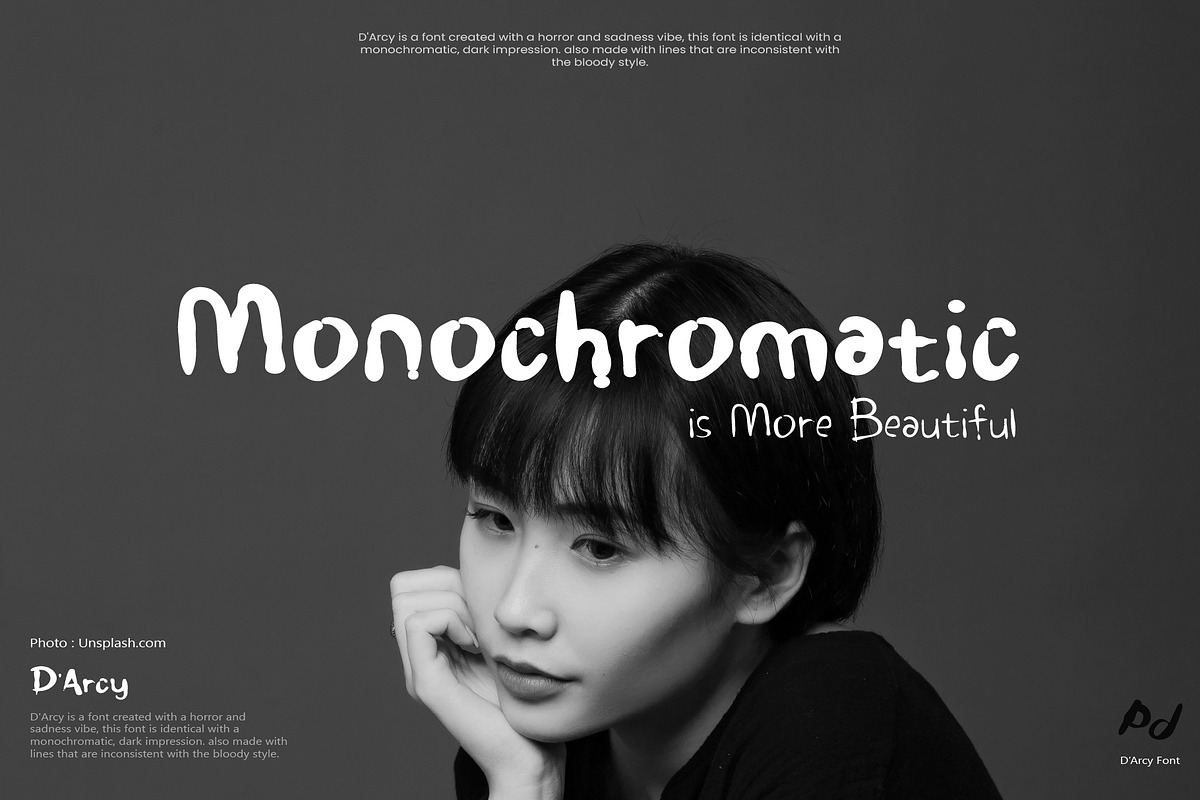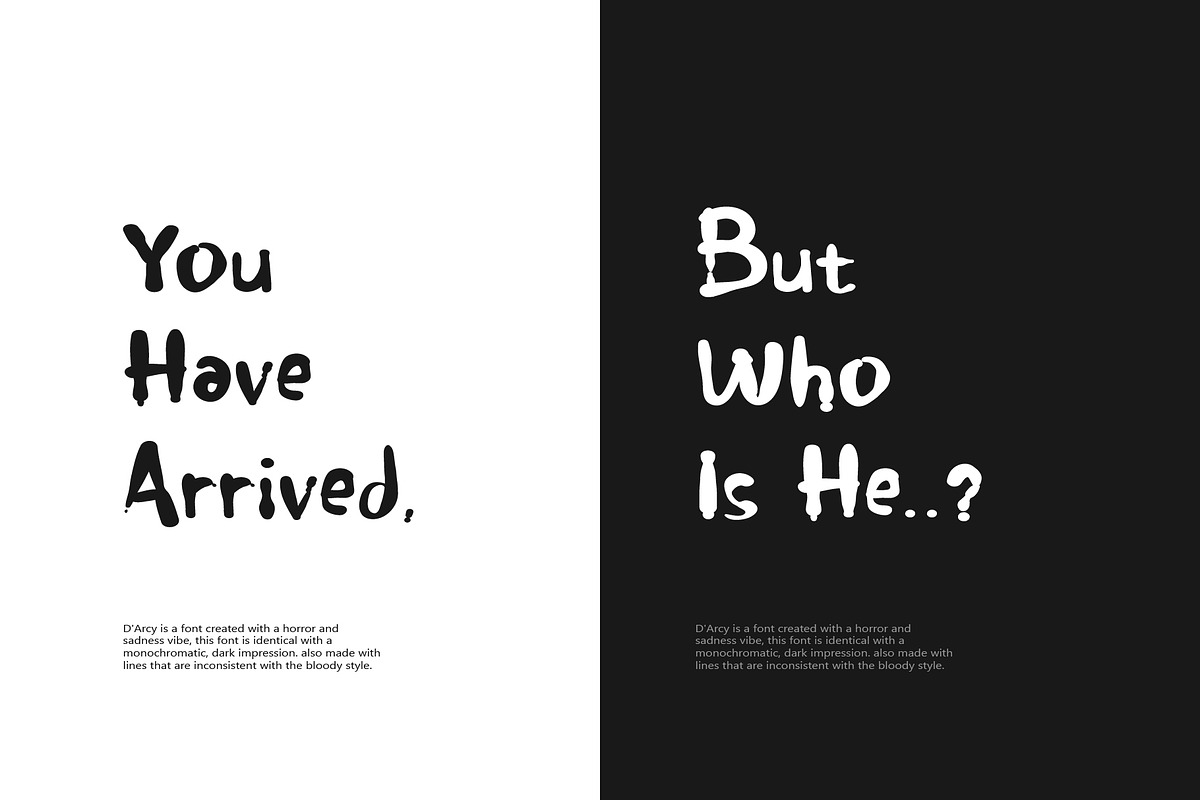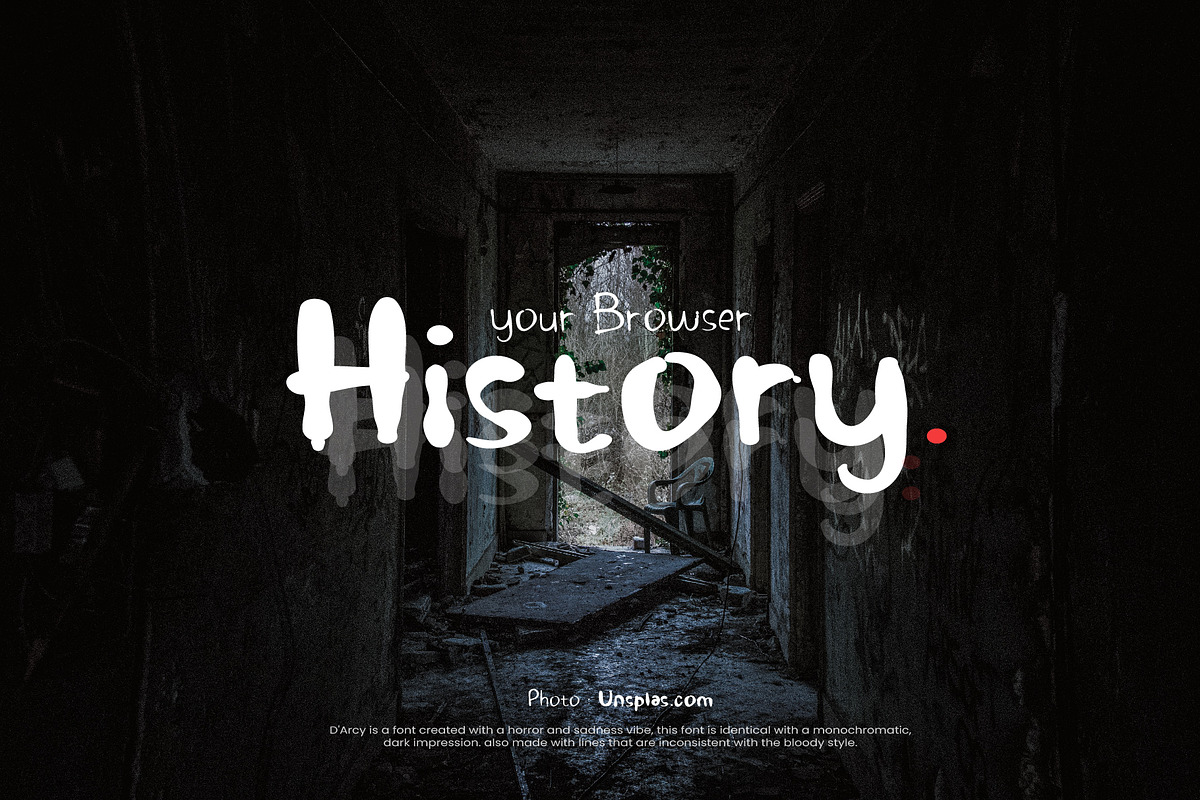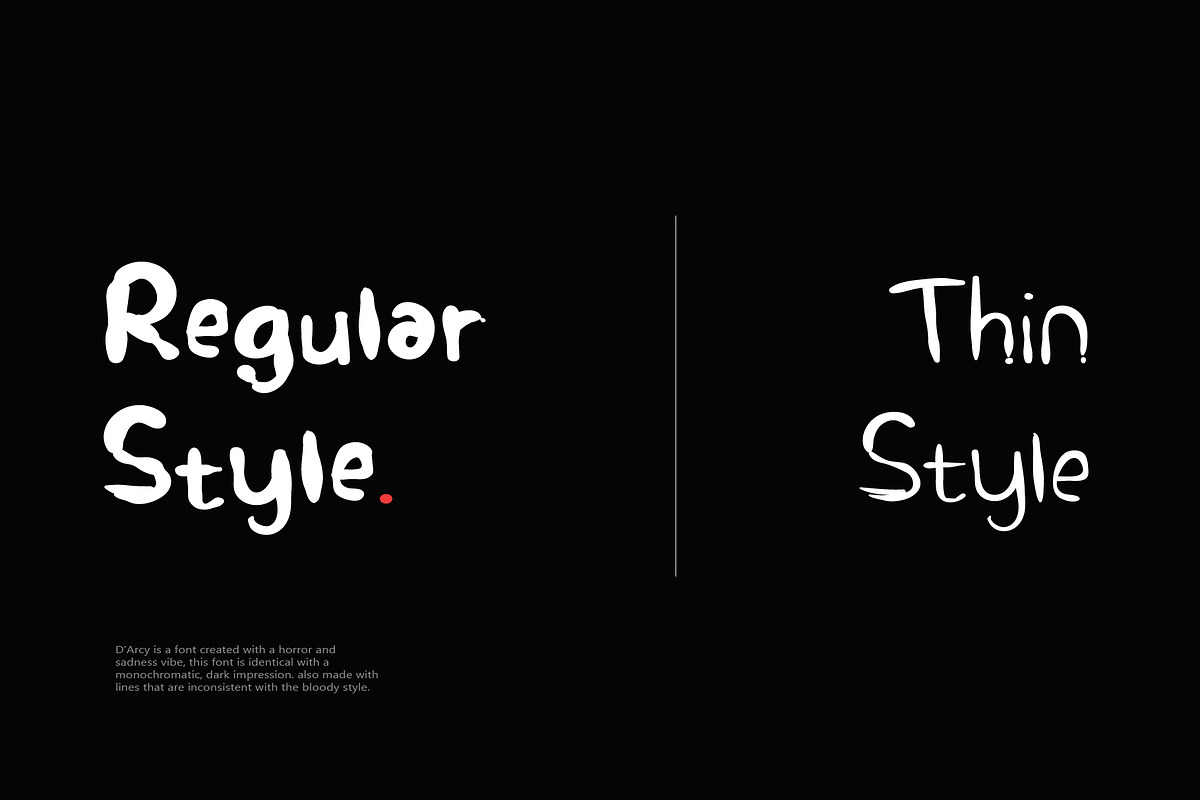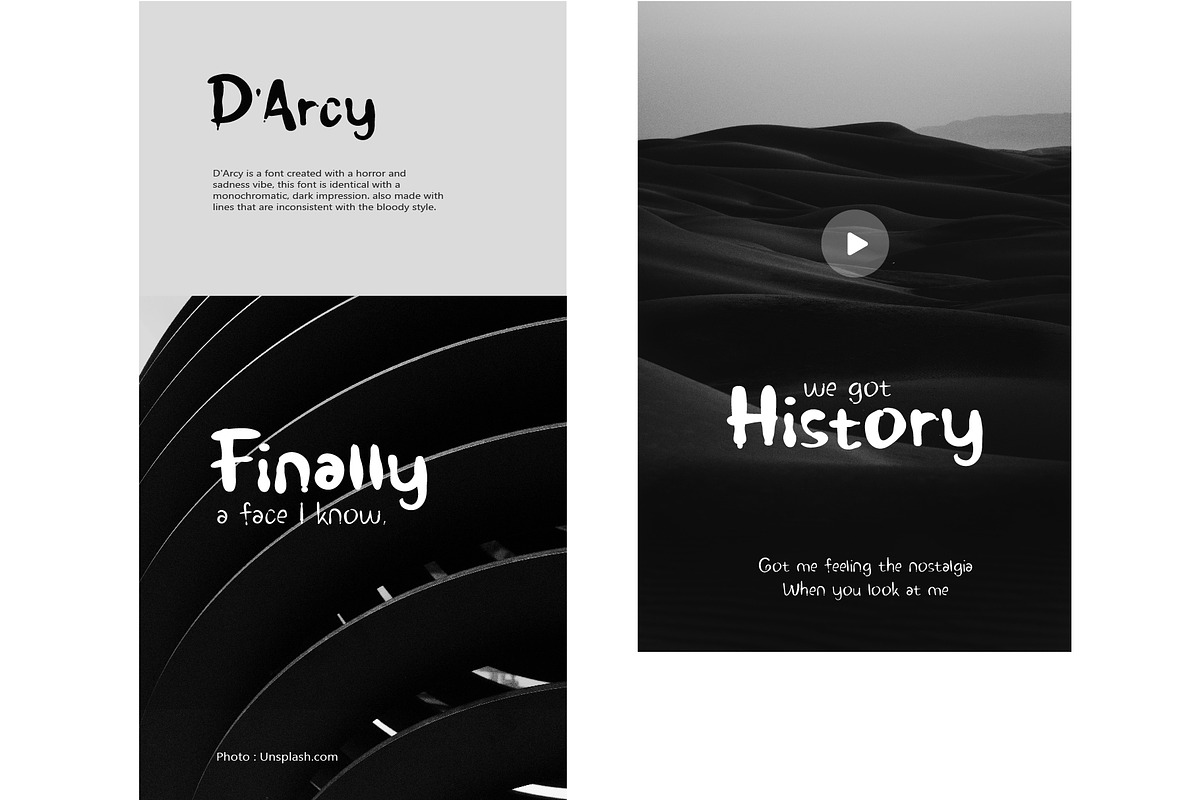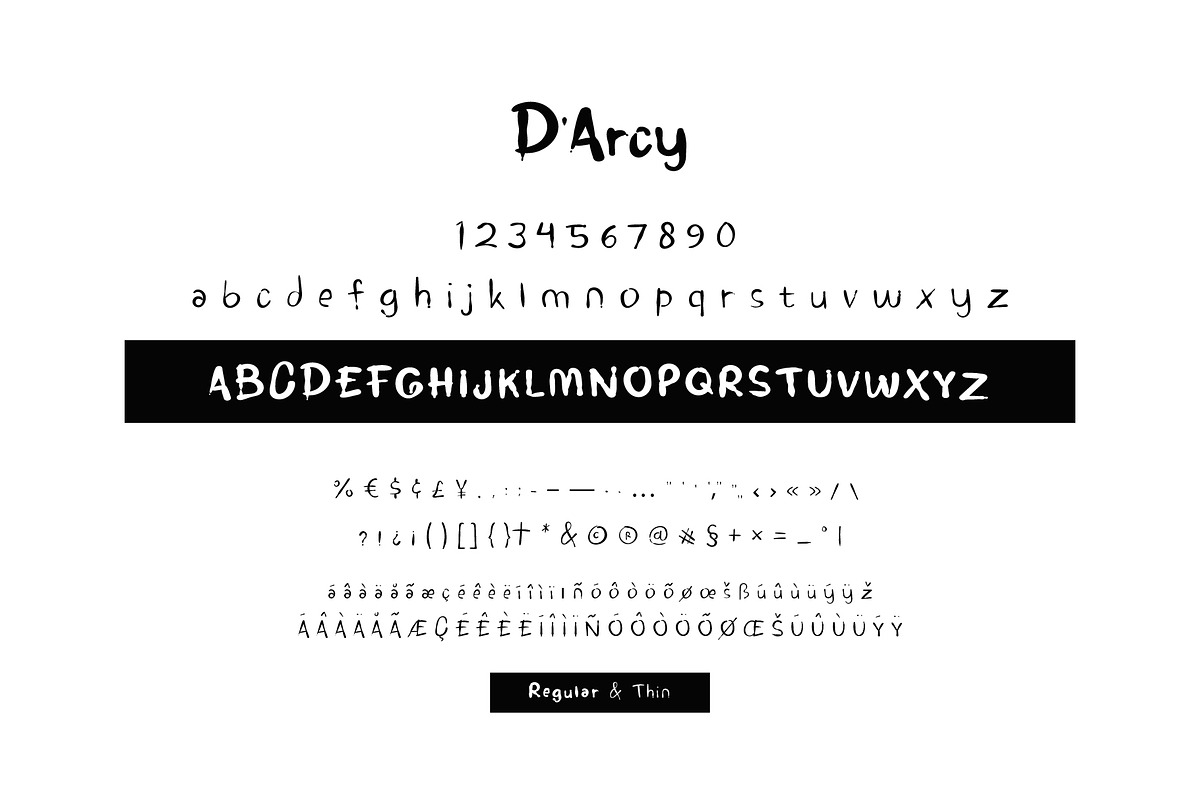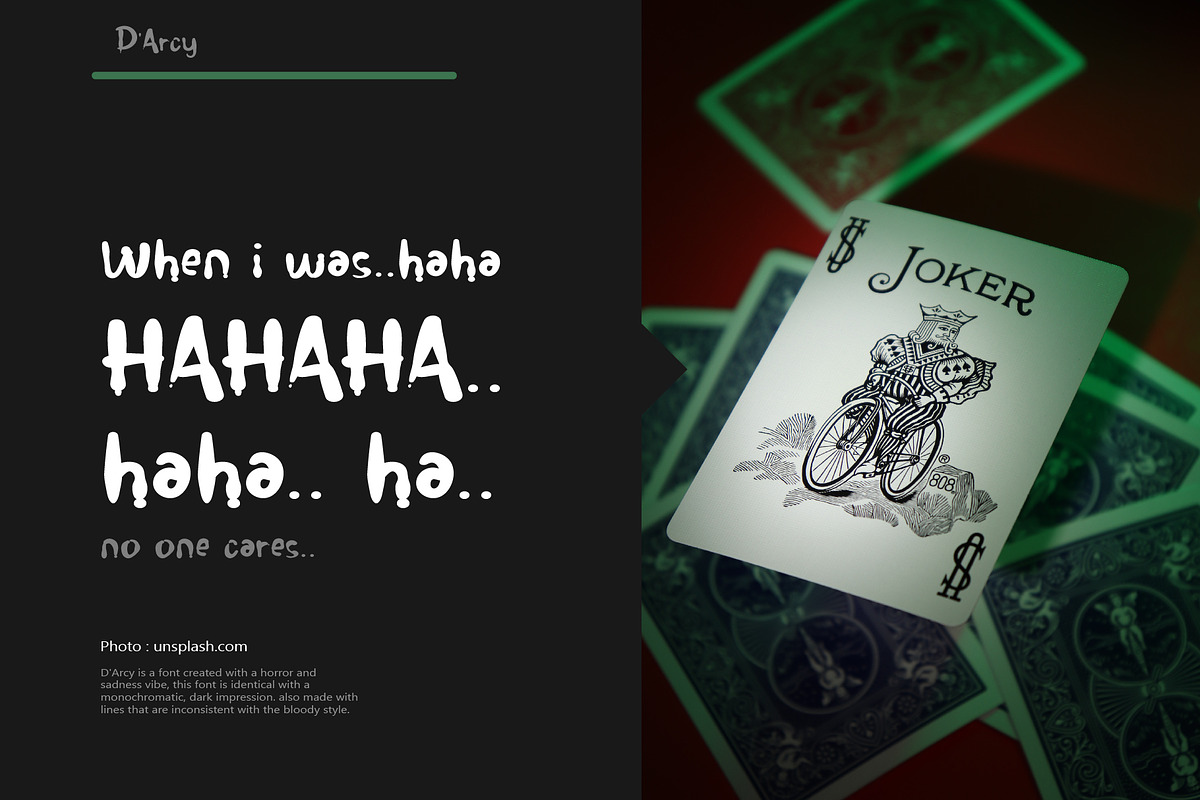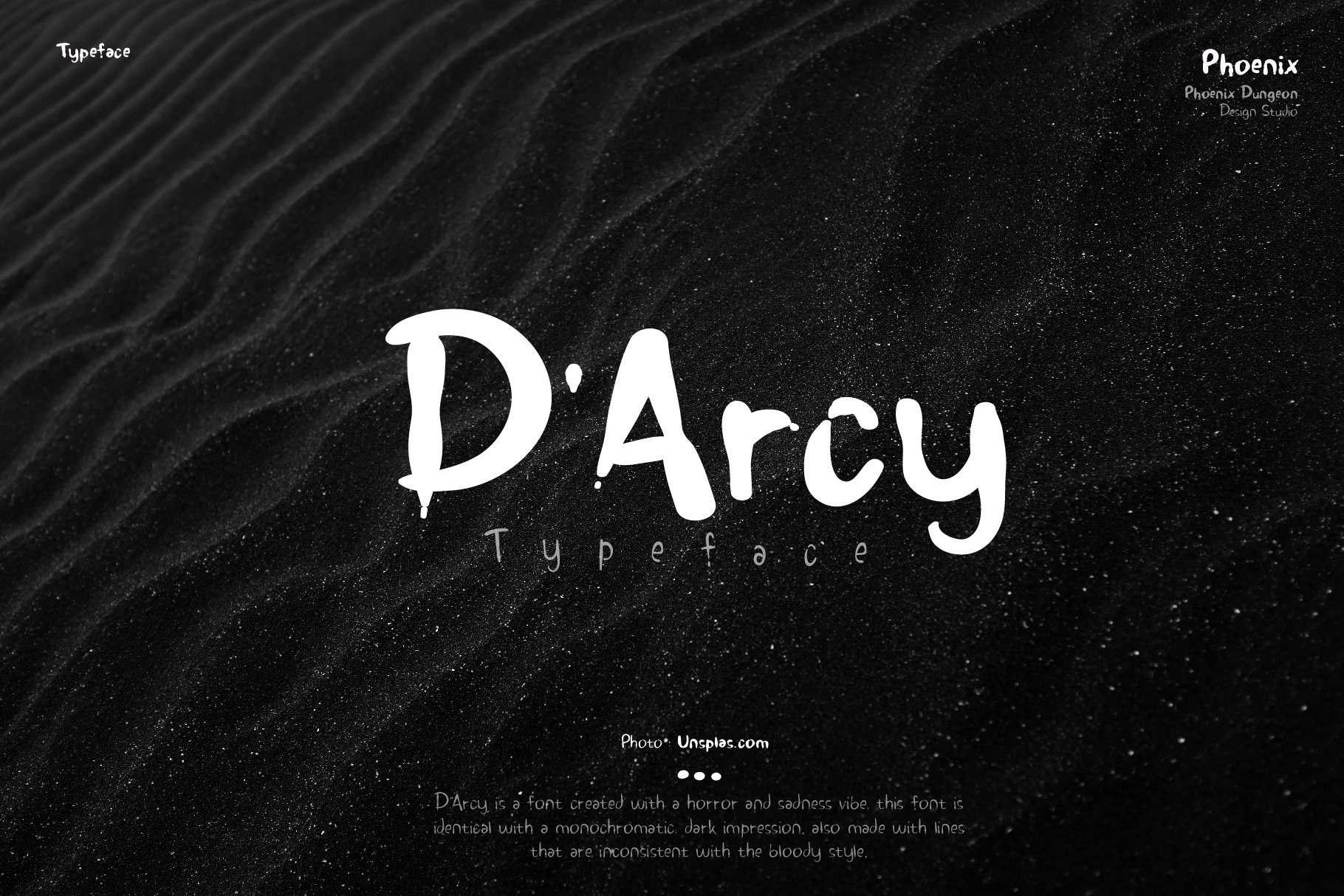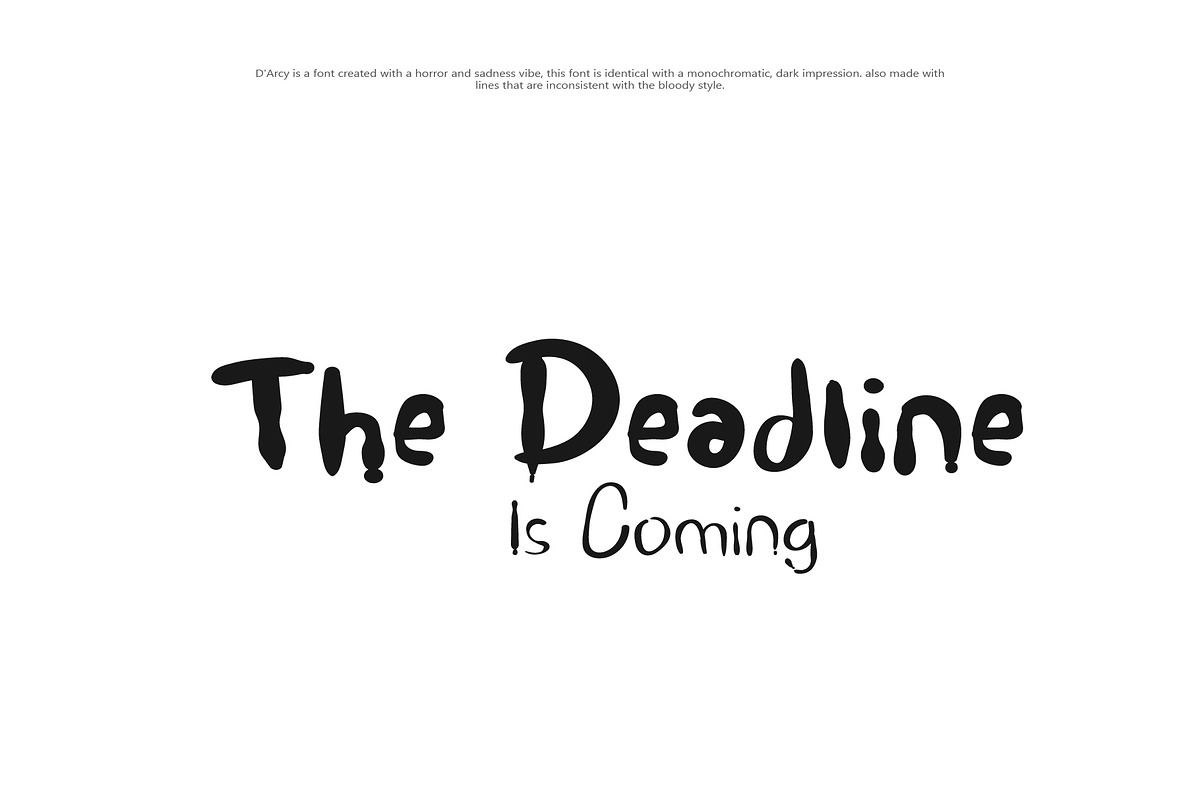
D'arcy Typeface
D'Arcy is a font created with a horror and sadness vibe, this font is identical with a monochromatic, dark impression. also made with lines that are inconsistent with the bloody style.